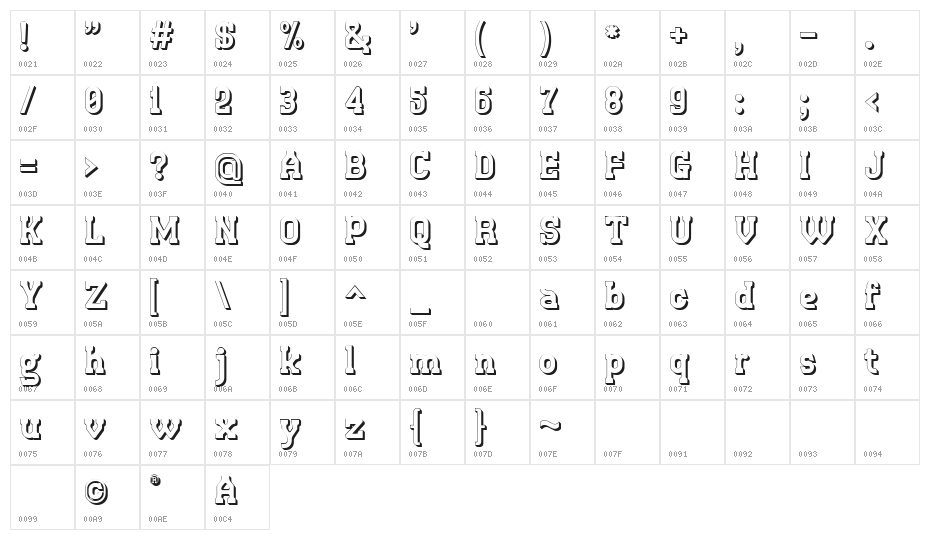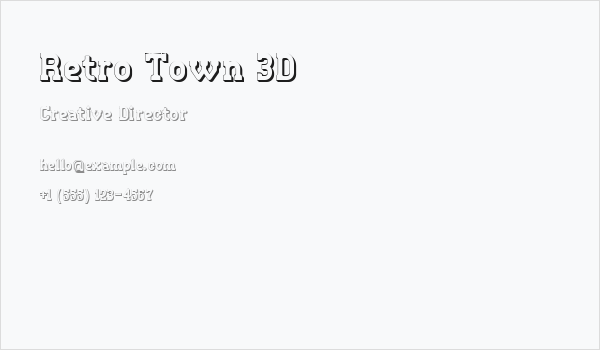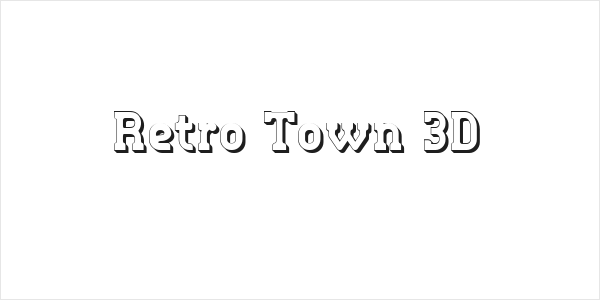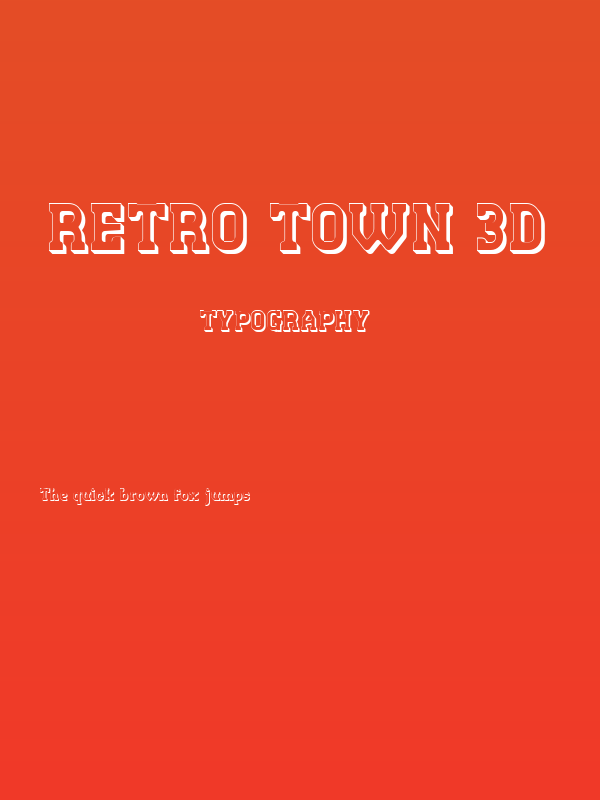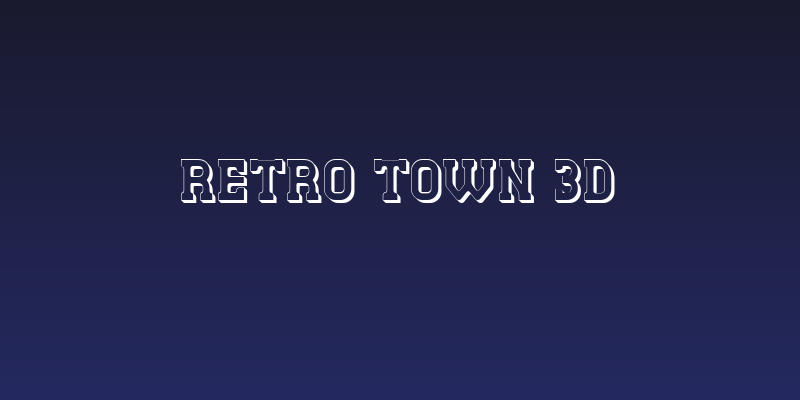
Retro Town 3D Font
Retro Town 3D Description
This font features a bold, three-dimensional design that evokes a retro aesthetic. The letters are outlined with a thick black border, creating a shadow effect that gives depth and a sense of movement. The uppercase and lowercase letters maintain a consistent style, with rounded edges and a sturdy appearance. Numbers and special characters are designed to match the boldness and dimensionality of the alphabet, making them stand out effectively. The overall look is playful yet structured, ideal for capturing attention.
| Overall Style | Retro, Decorative |
| Proposed Projects | Ideal for vintage-themed posters, retro branding, eye-catching headlines, and playful graphic designs. |